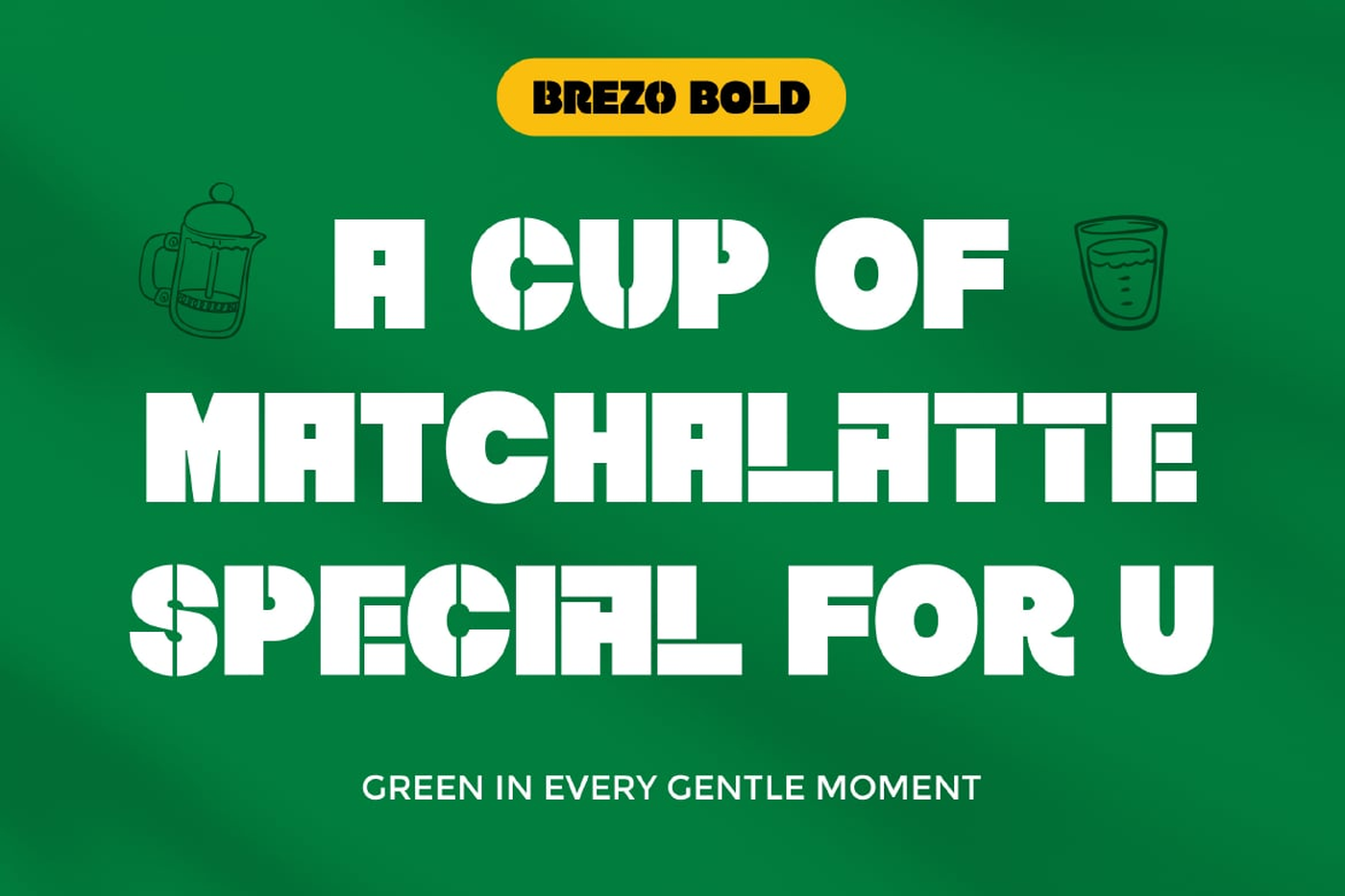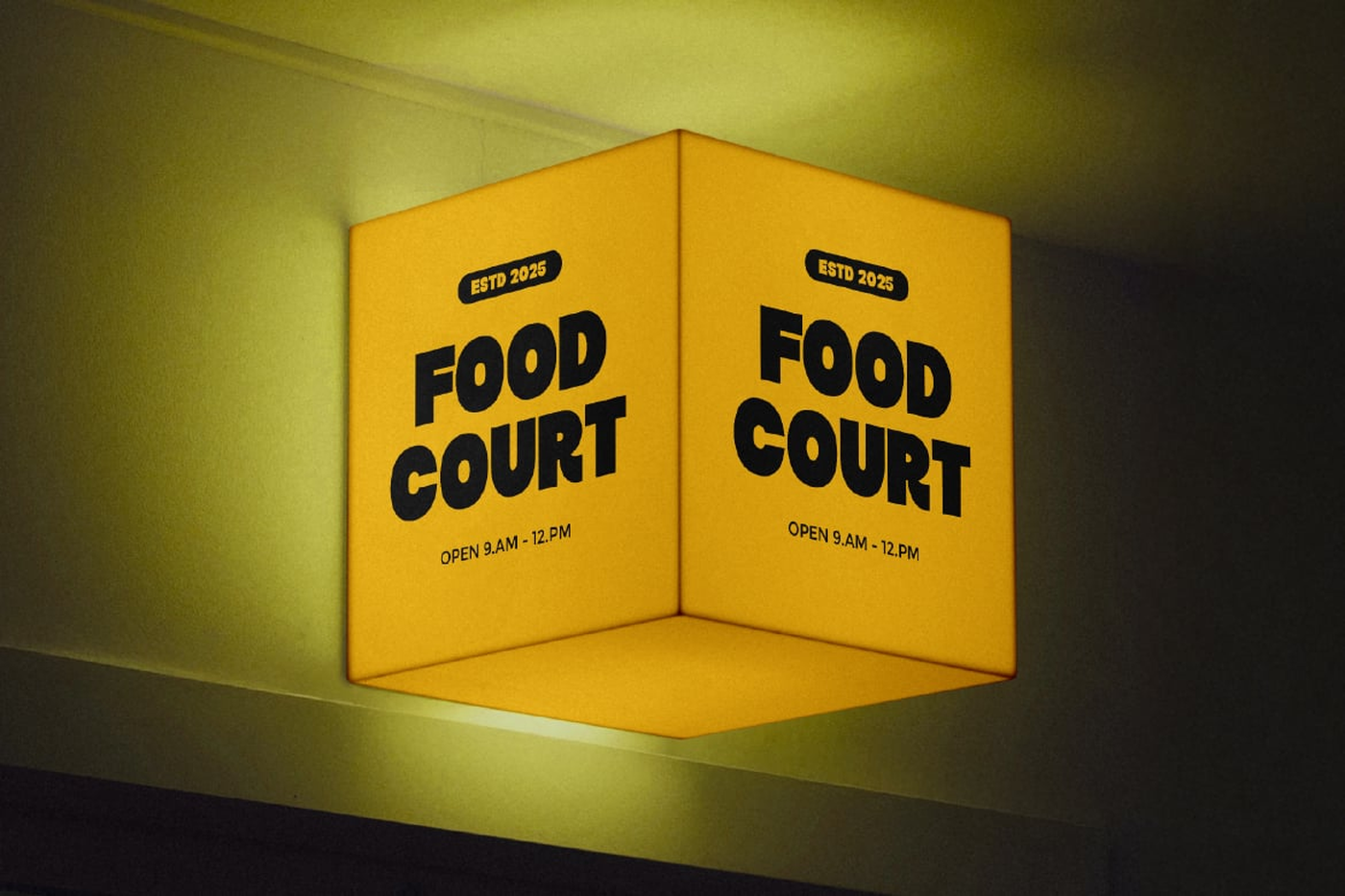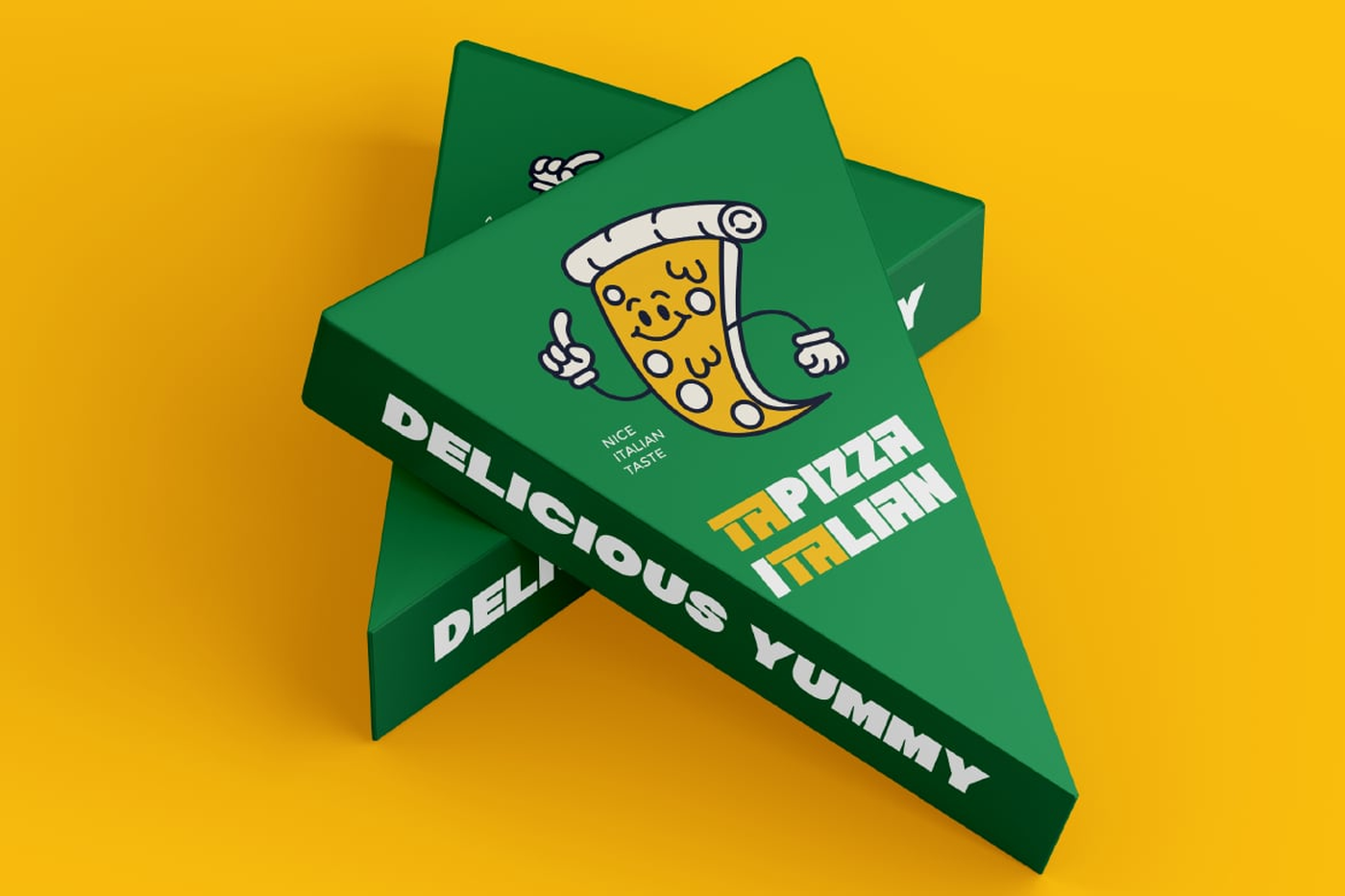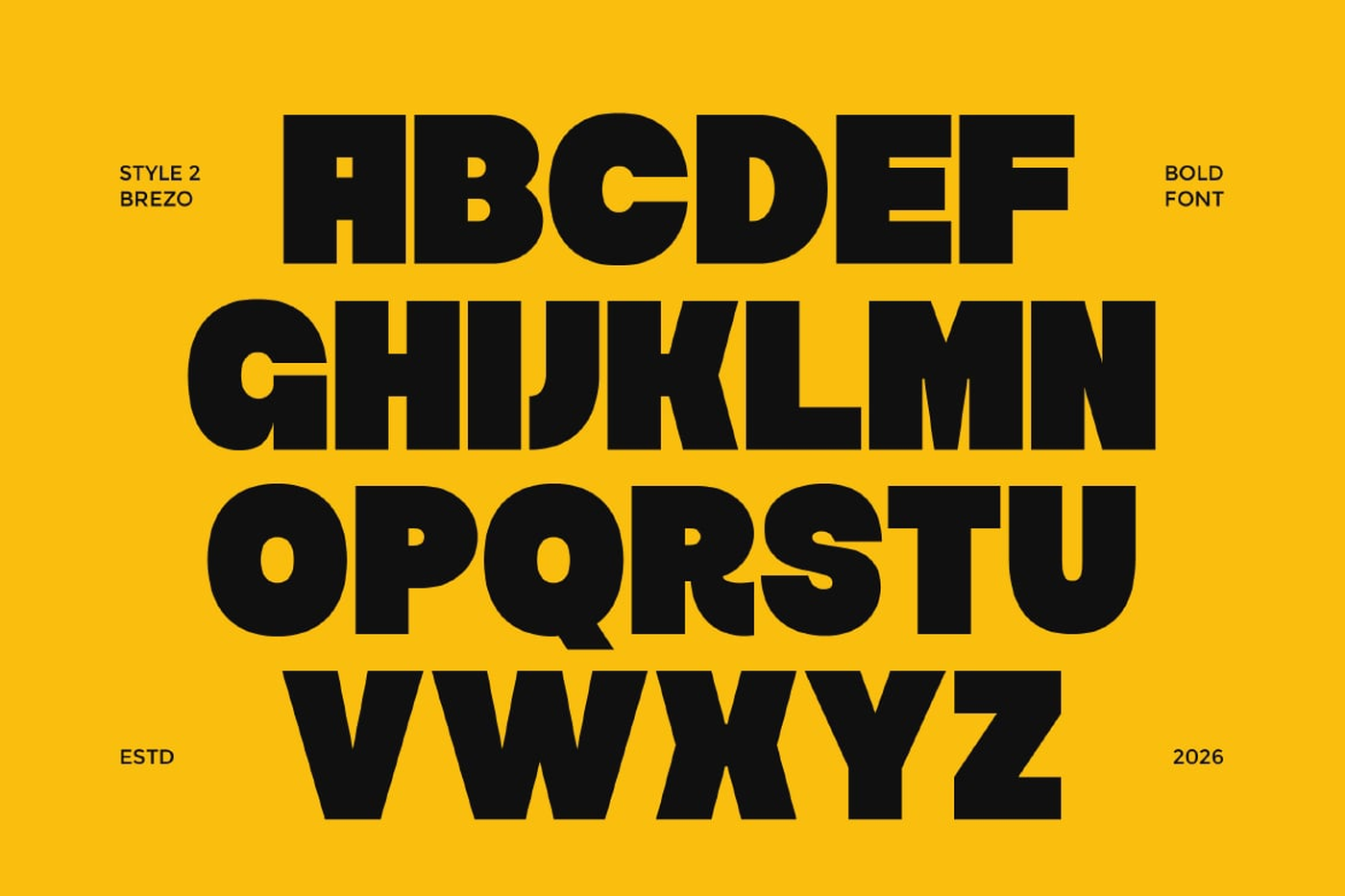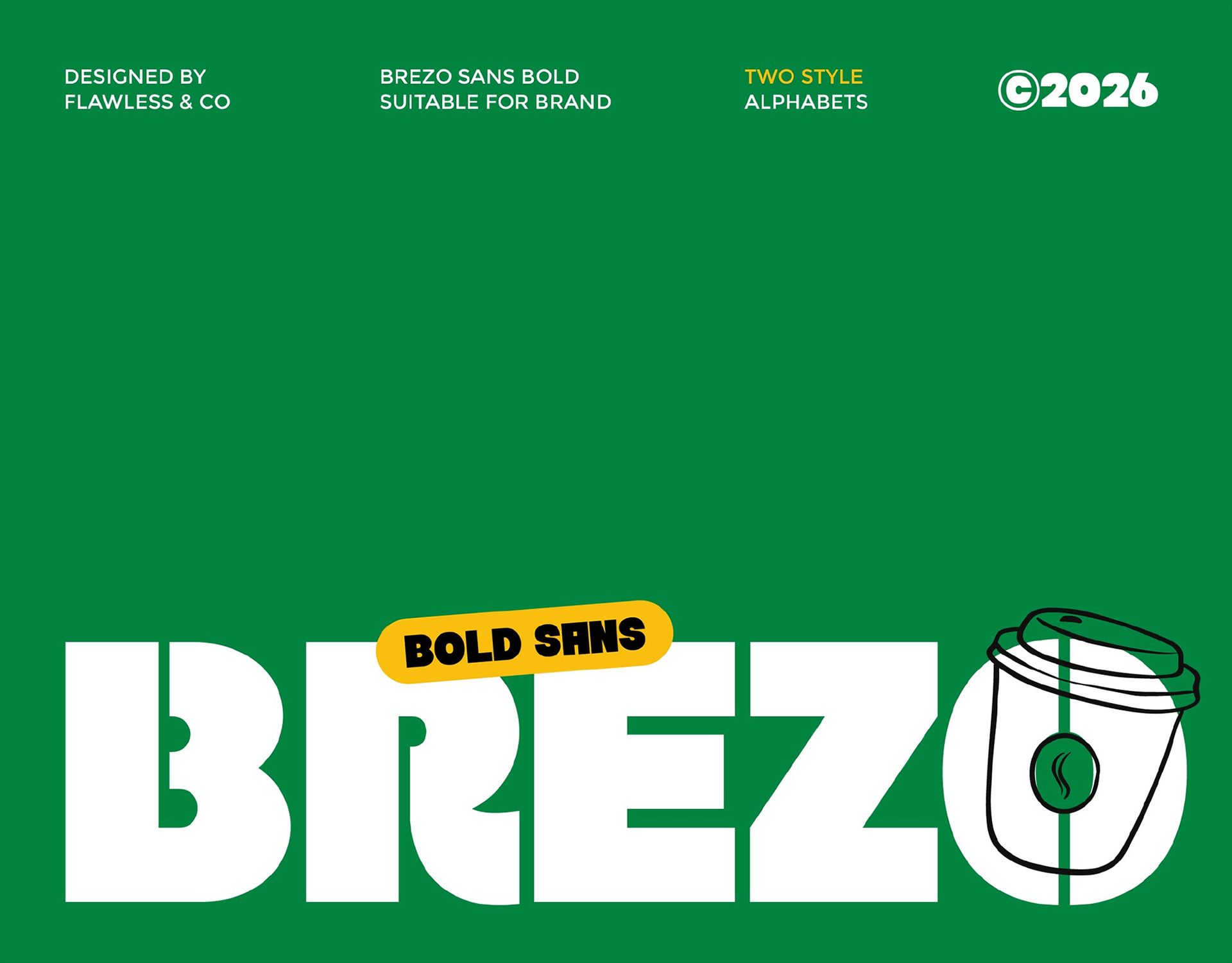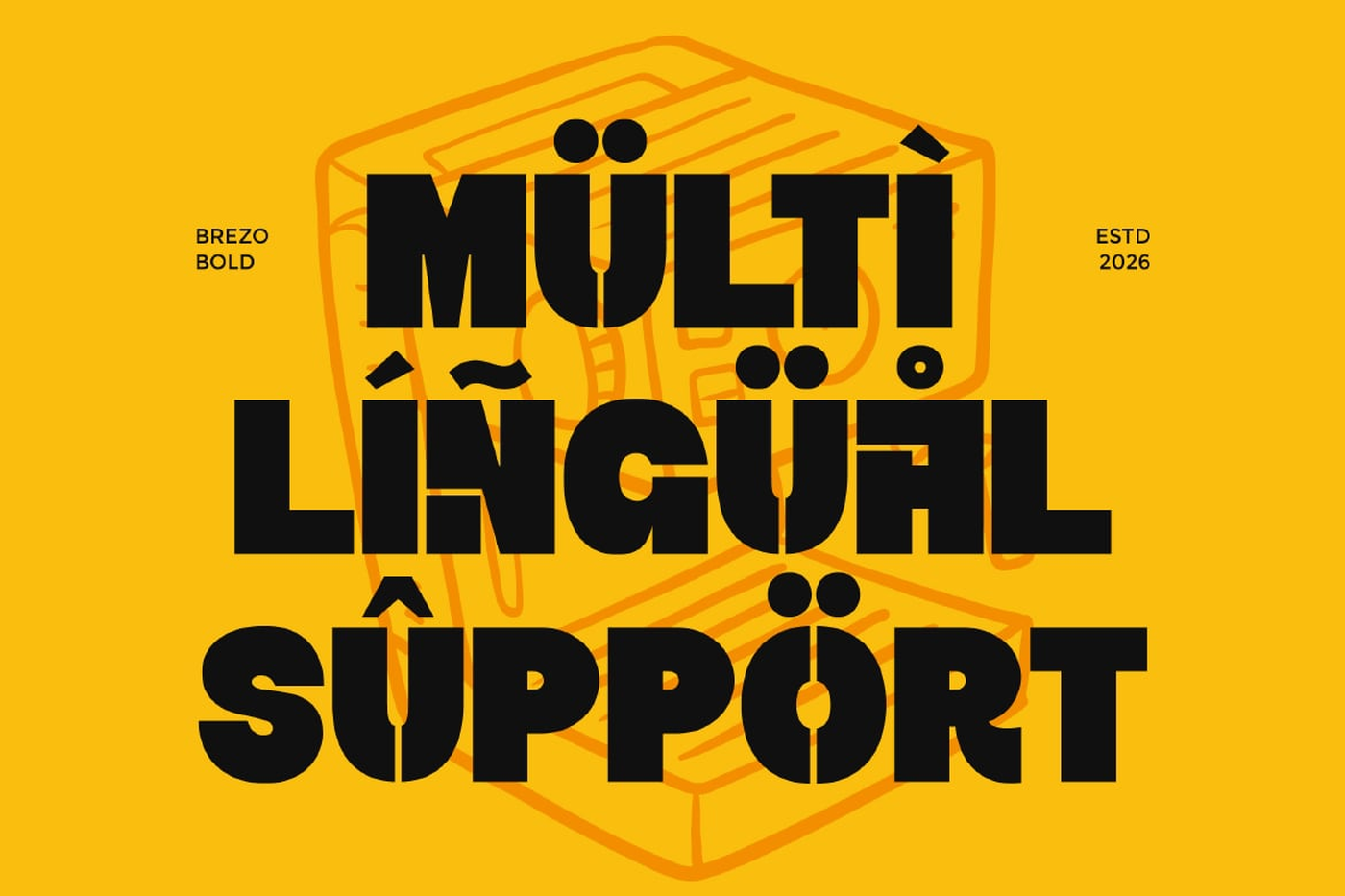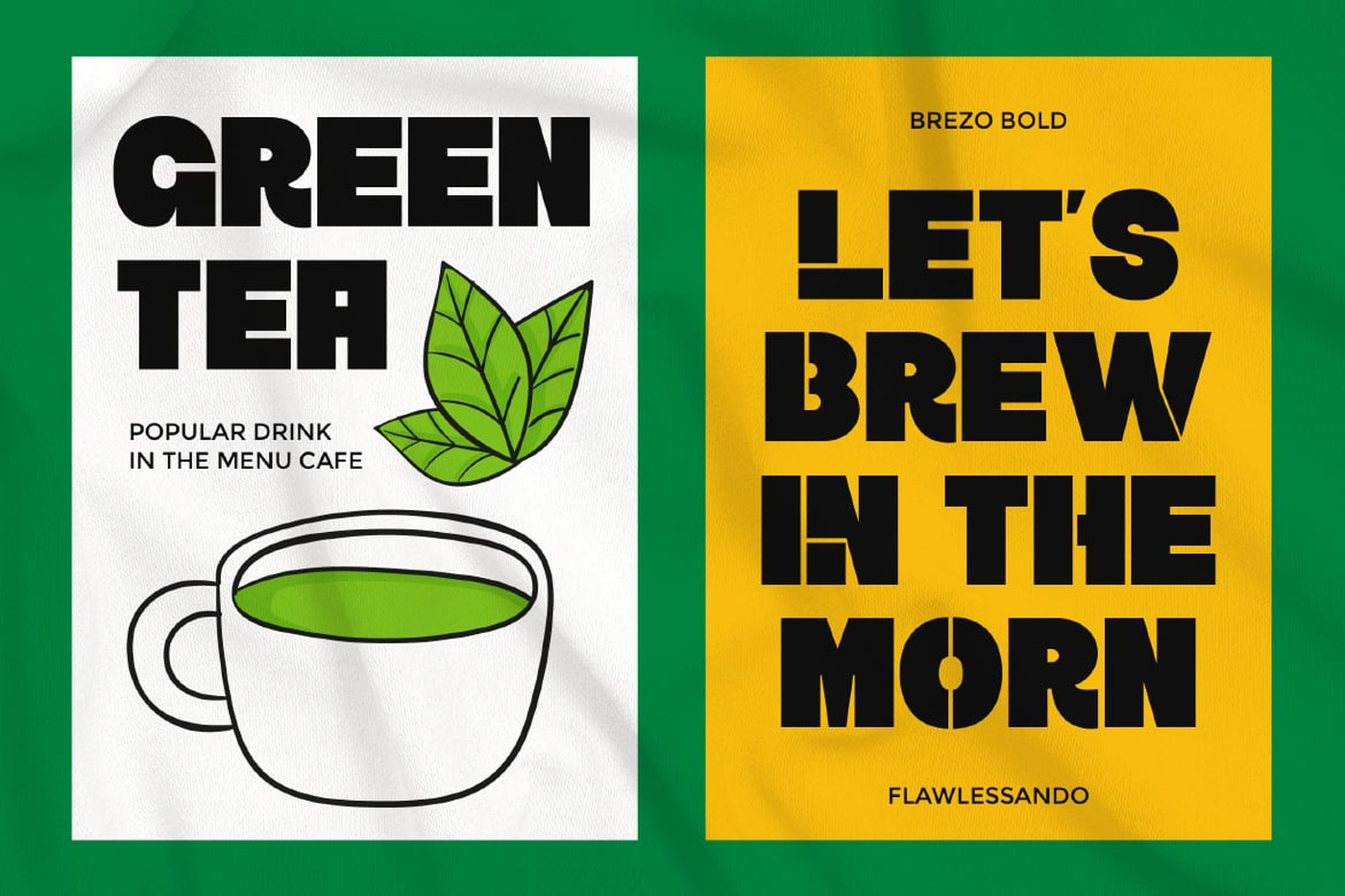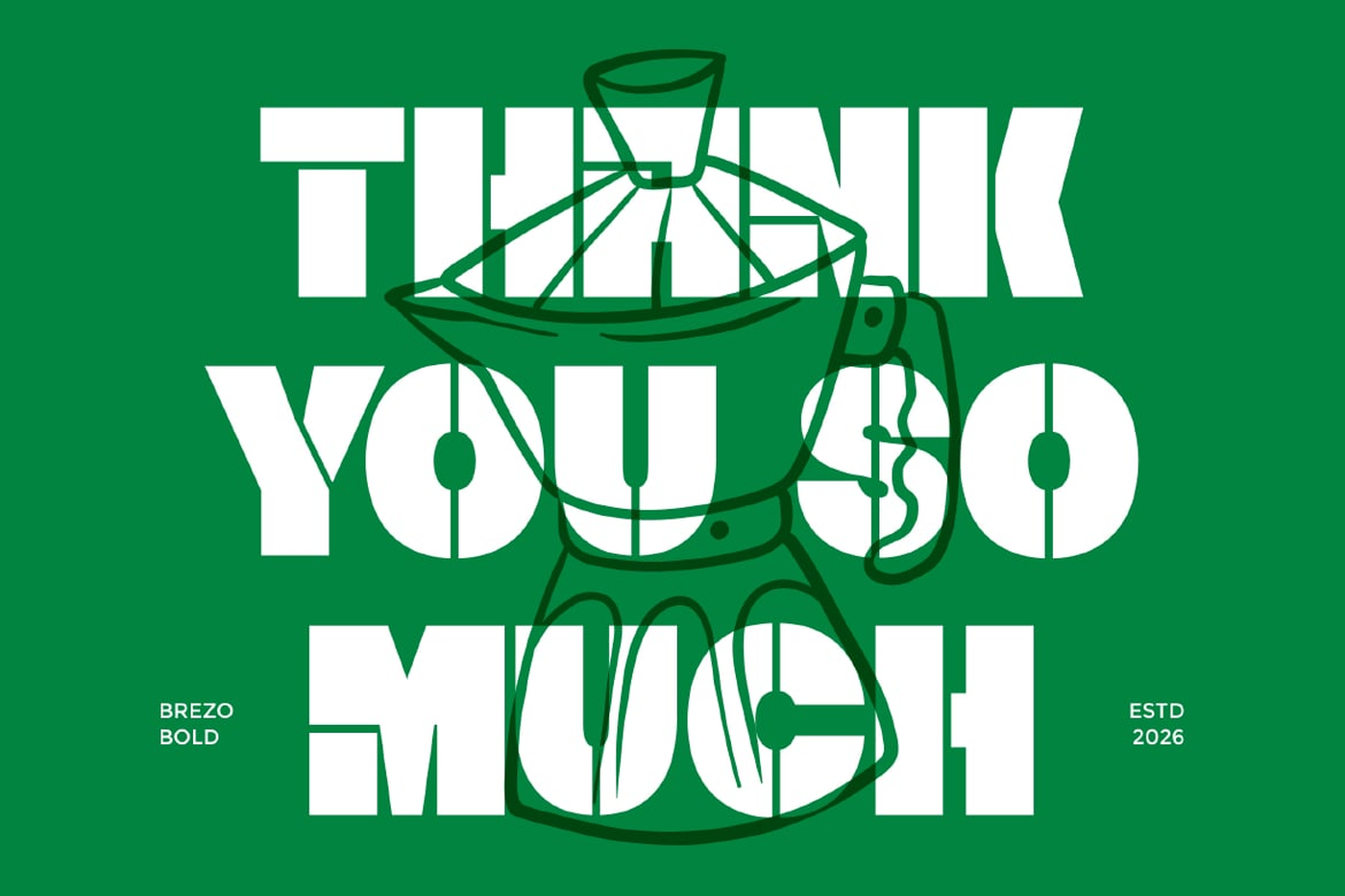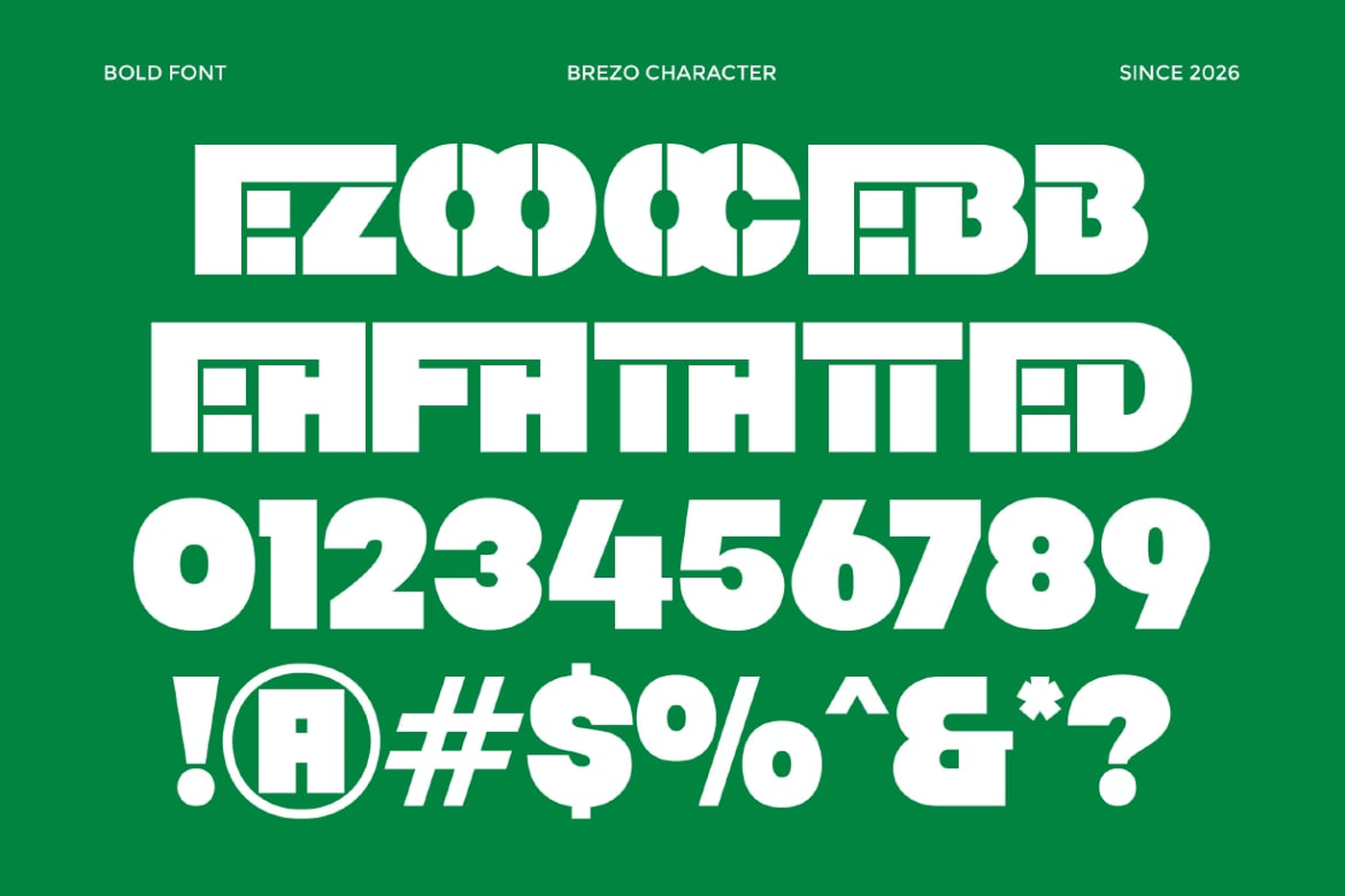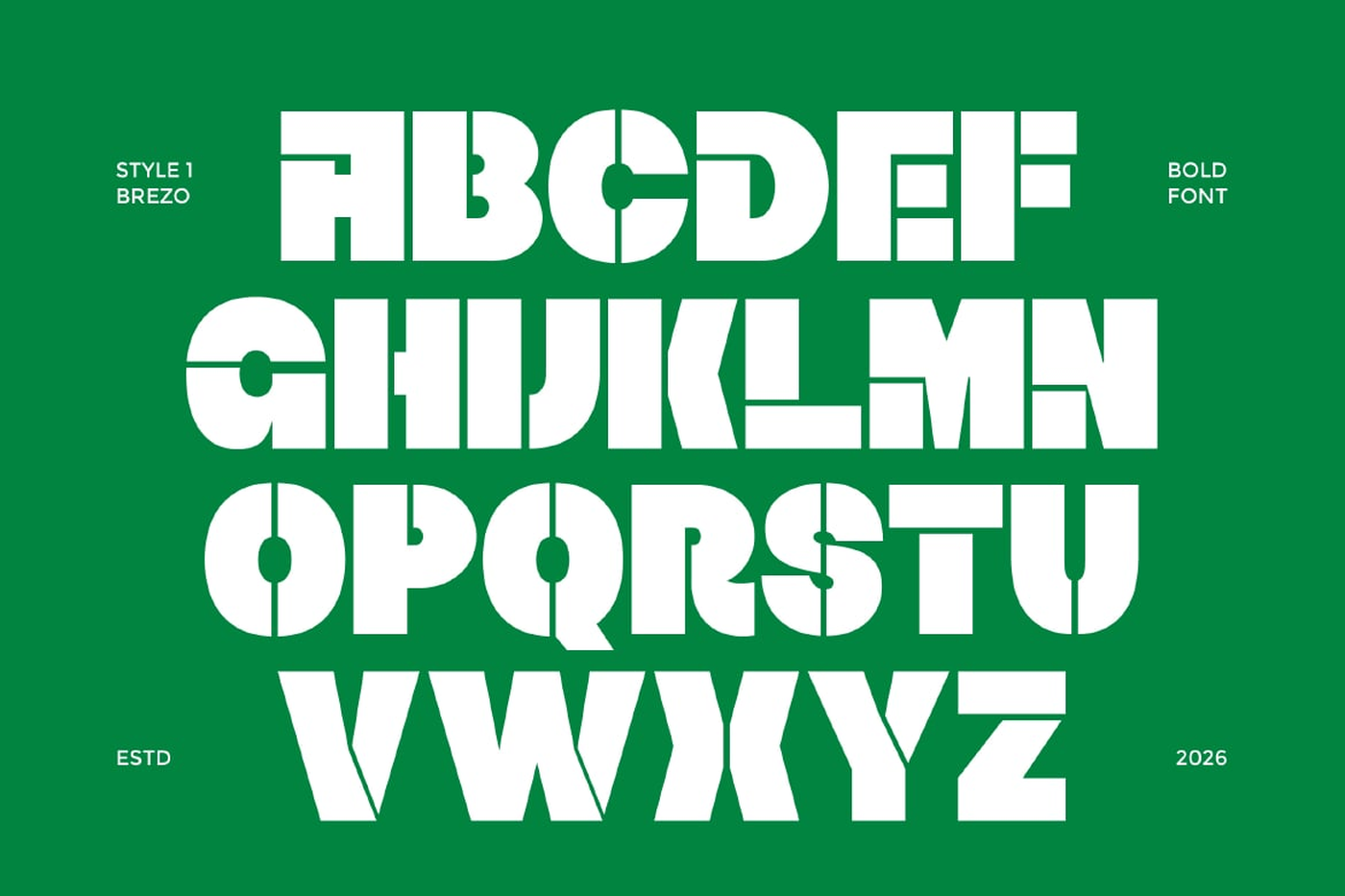
Brezo - Bold Sans Serif Font
Brezo is a bold sans serif font designed to deliver strength, clarity, and modern impact in every letter. With its solid structure, clean lines, and confident proportions, Brezo creates a powerful visual presence that instantly grabs attention. Its minimalist yet strong design makes it highly versatile while maintaining a bold and professional look.